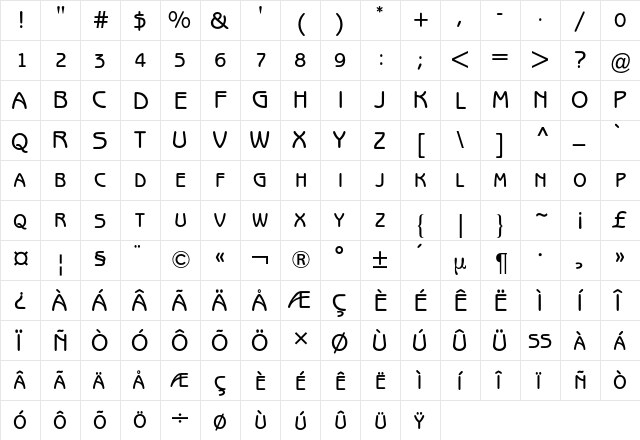
Benguiat Gothic Expert BQ Regular
Design Context for Benguiat Gothic Expert BQ Typeface
Benguiat Gothic Expert BQ has the quiet confidence of well-executed sans-serif typography: versatile, unobtrusive, and dependable at any size.
Font Pairing: Works well alongside a characterful serif or display font that can carry the expressive load while Benguiat Gothic Expert BQ handles the functional copy.
Pro Tip: Use Benguiat Gothic Expert BQ for UI labels, navigation, and short-form body copy where clean legibility is the priority.